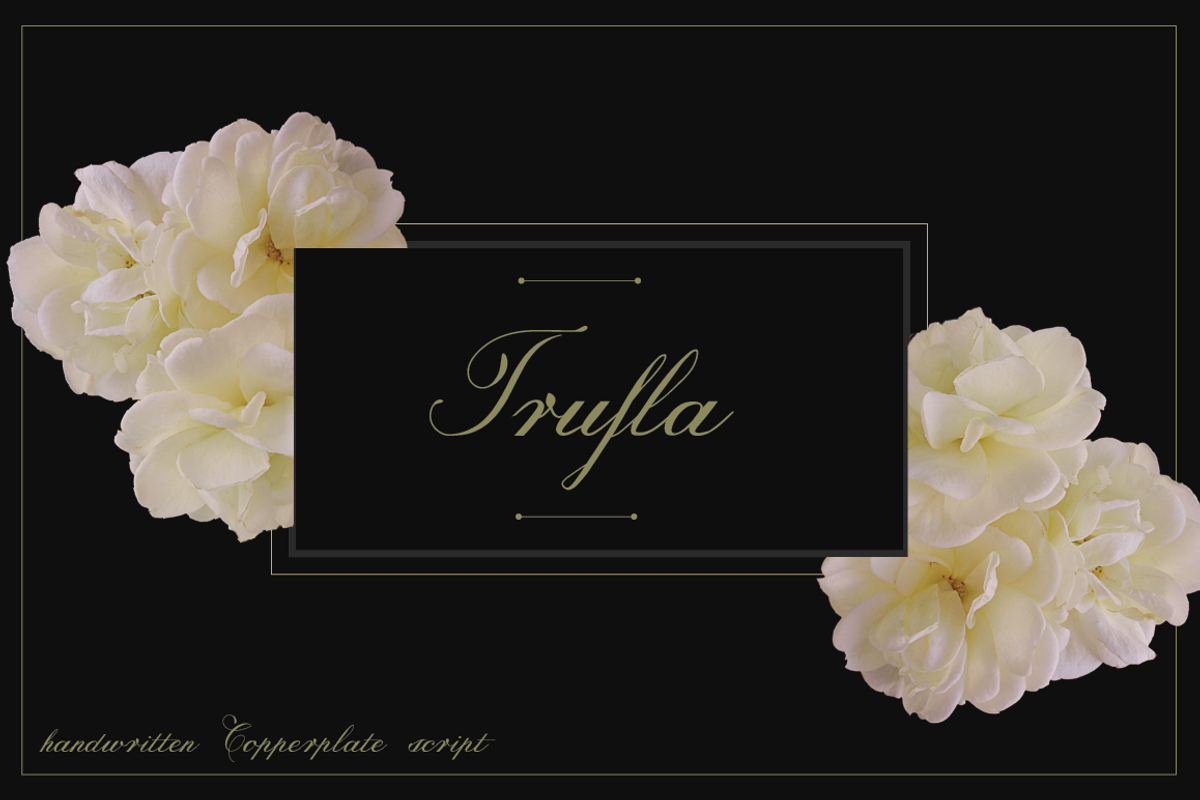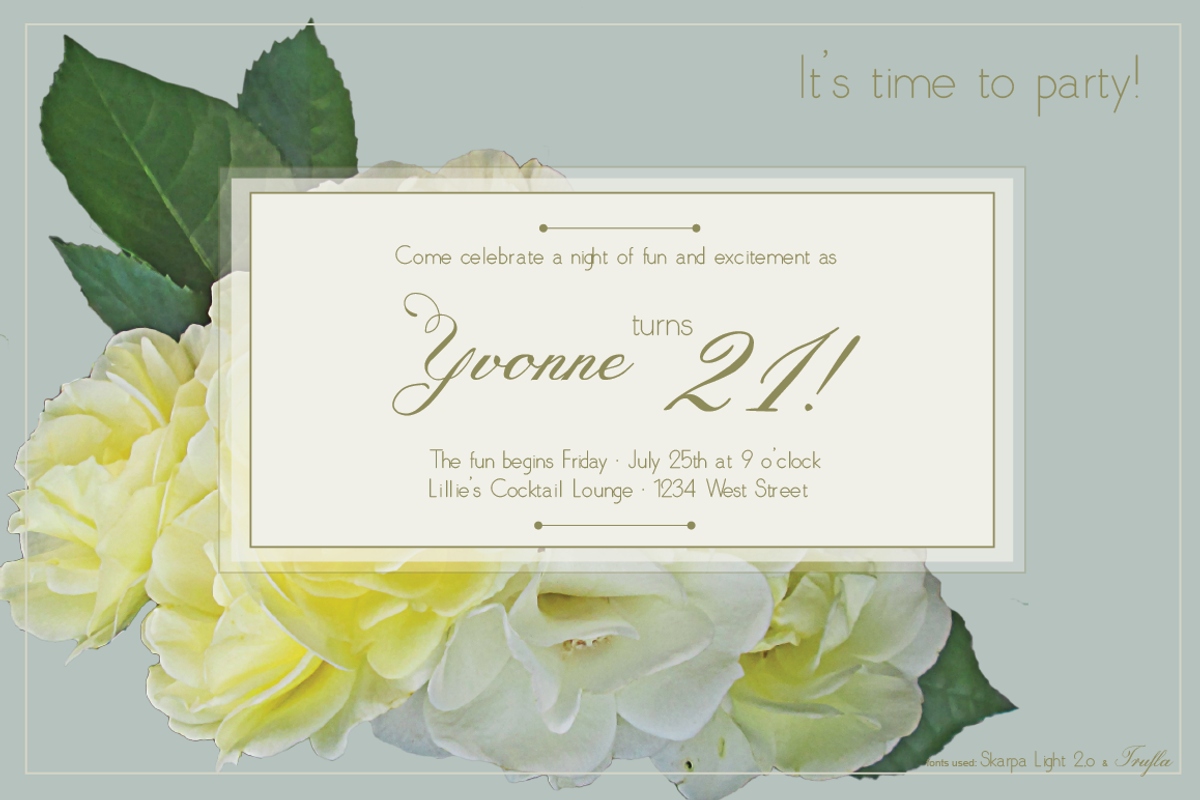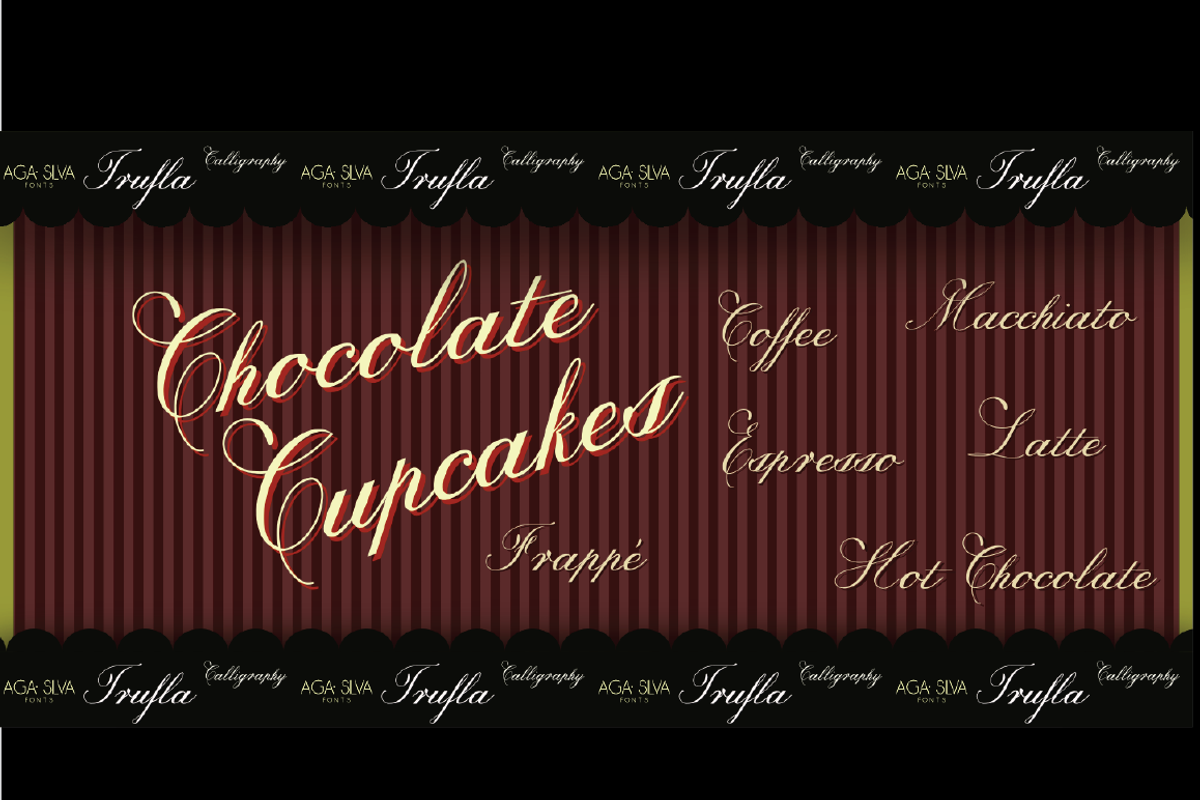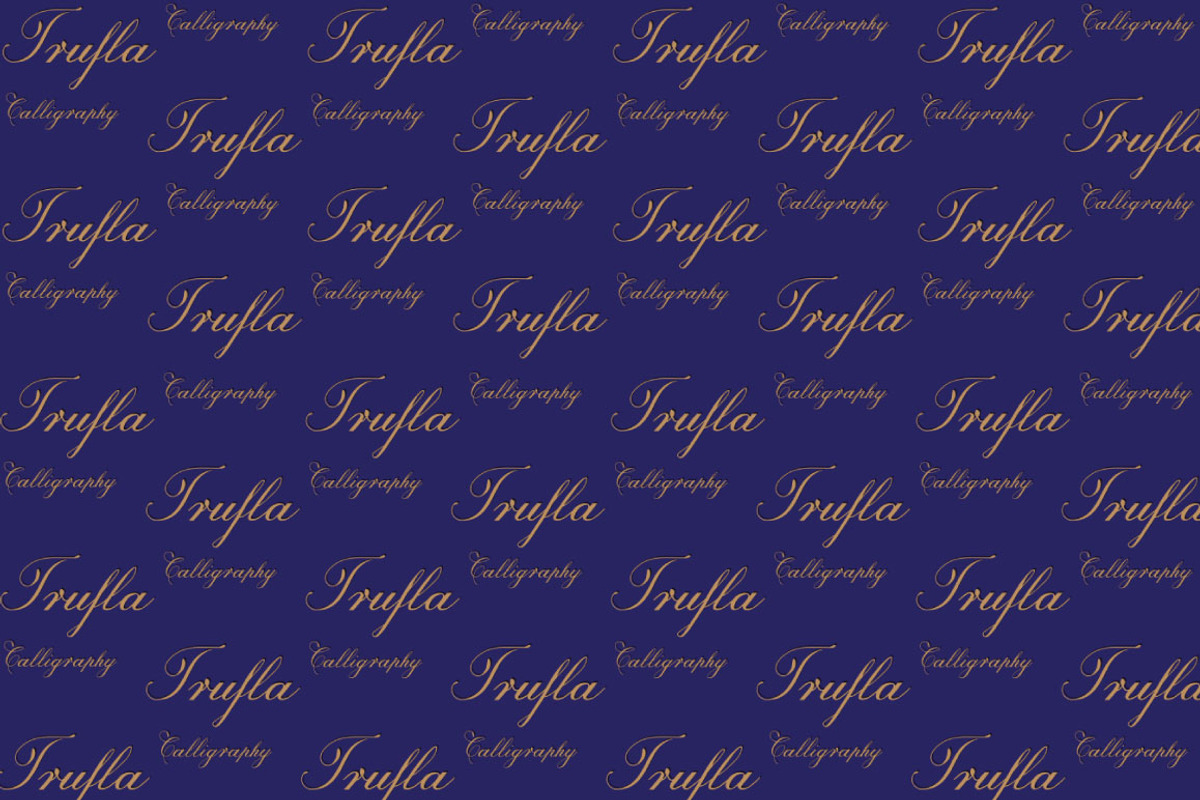
Trufla font
Trufla font by Aga Silva is a font selected for branding, posters, packaging, typography.
Why Trufla font is worth a look
Trufla font by Aga Silva fits naturally into Branding, posters, packaging, typography.